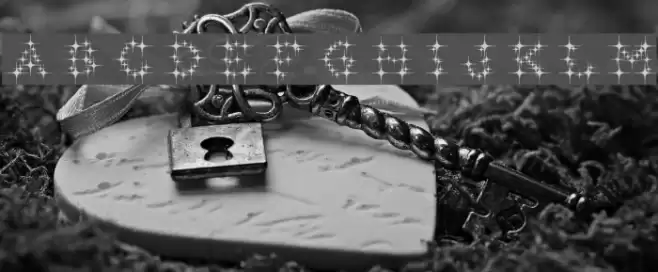
GalaxyfaceReg Font
GalaxyfaceReg Description
This font features a unique and decorative style, characterized by star-like embellishments that give each character a celestial appearance. The letters are formed with a series of intersecting lines and points, creating a sparkling effect reminiscent of a night sky. This design is consistent across uppercase, lowercase, numbers, and special characters, maintaining a cohesive and artistic look. The font's intricate details make it stand out, offering a visually striking option for creative projects.
A decorative font with star-like embellishments and a celestial theme from Asian fonts.
- Proposed Projects: Ideal for projects that require a cosmic or fantasy theme, such as book covers, posters, or event invitations.